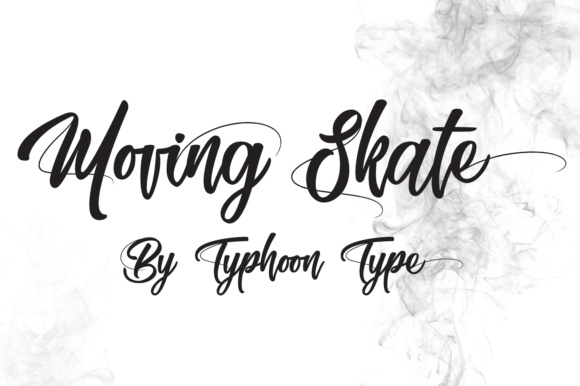
Moving Skate Font
About Moving Skate Font
Moving Skate is a beautiful handwritten cursive font, ideal for use in a wide range of special event designs. This font has some aesthetic strings to give your work some texture and grit, and looks great in print work.